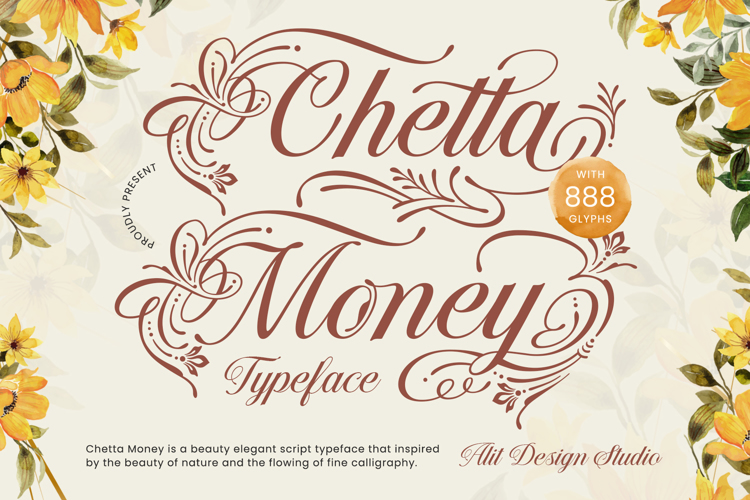
Chetta Money Font
Chetta Money Typeface – An Elegant Script of Natural Beauty
Step into a world where elegance and nature intertwine with Chetta Money, a breathtakingly beautiful script typeface from Alit Design Studio. Inspired by the delicate flow of fine calligraphy and the abstract beauty of the natural world, Chetta Money brings a touch of timeless sophistication and organic charm to any creative project.
From the gentle curve of a petal to the graceful sweep of a vine, every character in Chetta Money is crafted with meticulous attention to detail. Its fluid lines and ornate flourishes move with a life of their own, creating a perfect harmony between classic lettering and modern design.